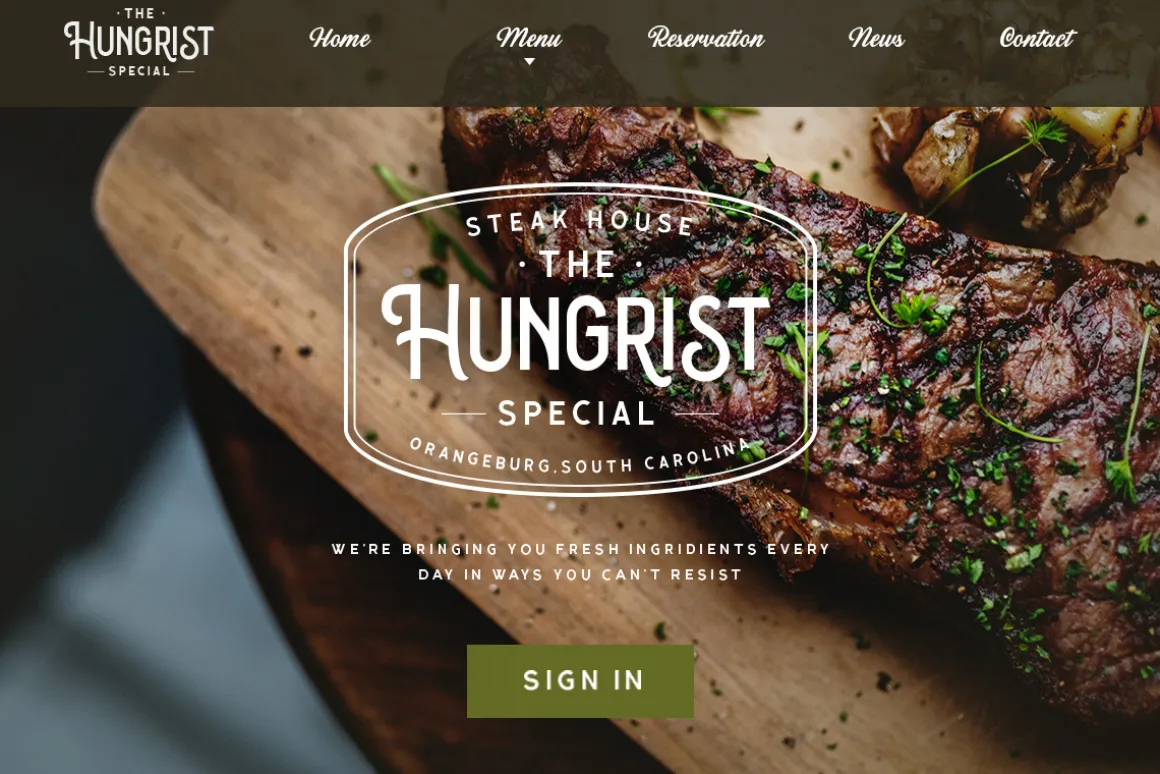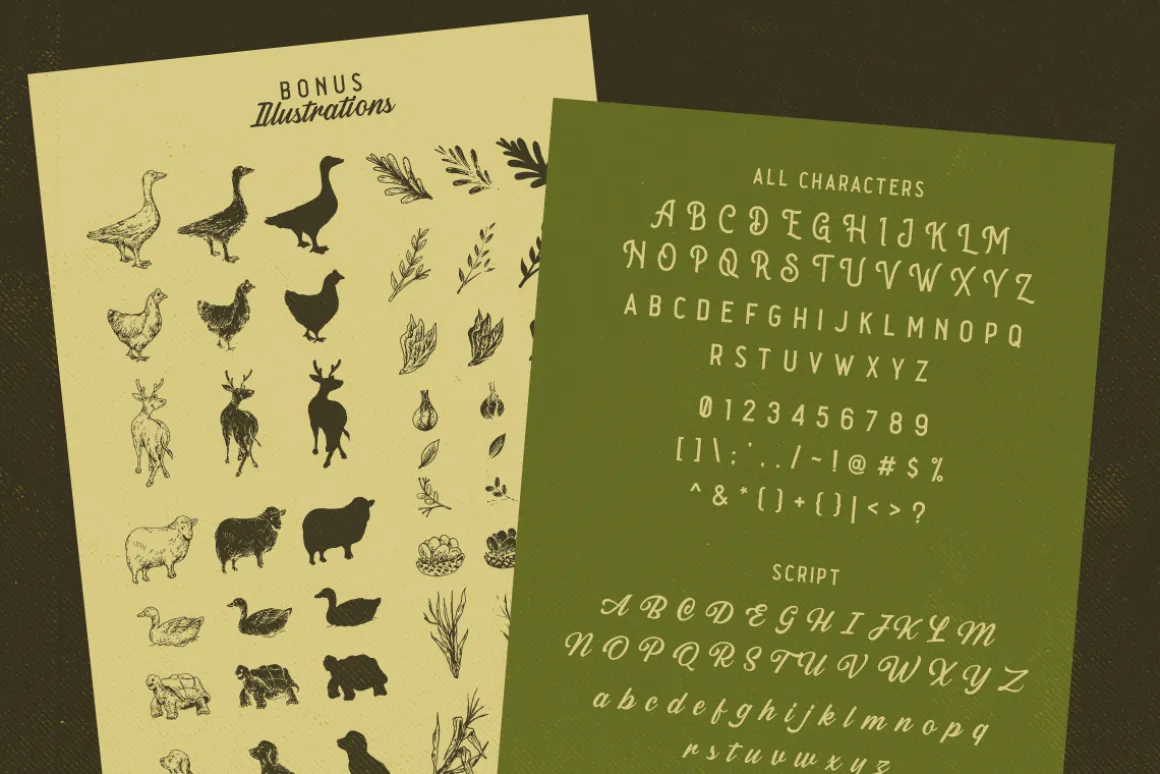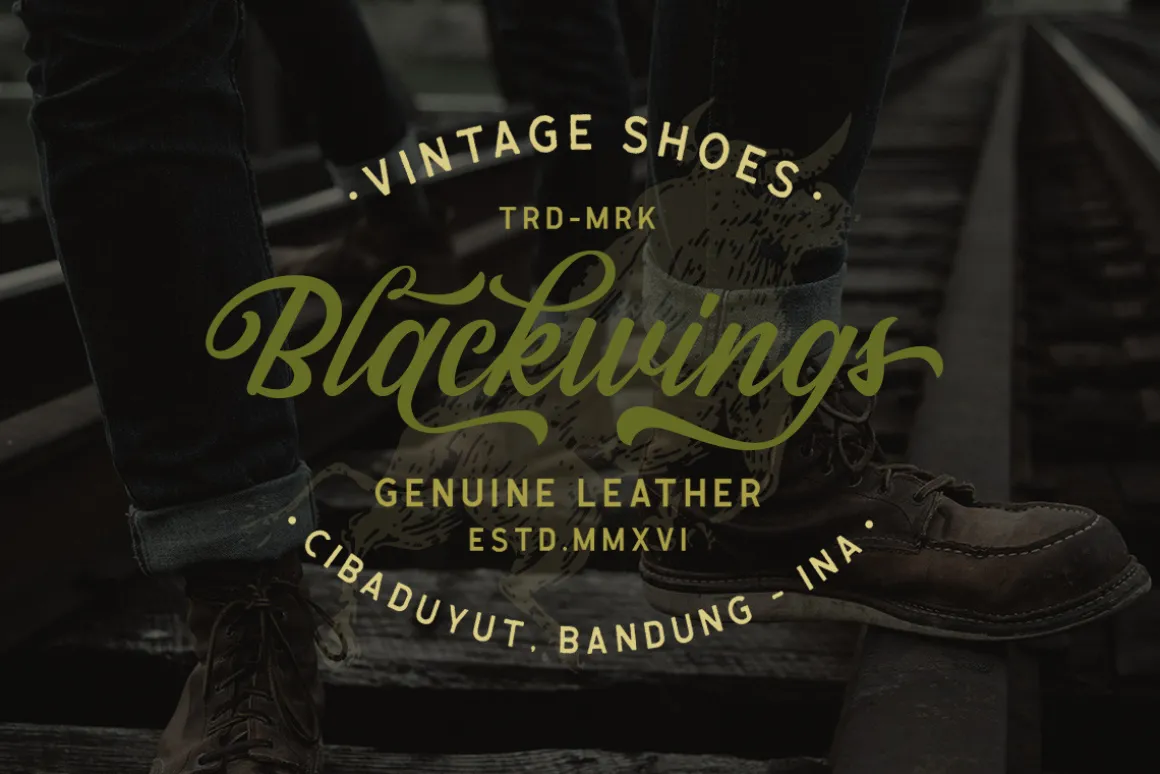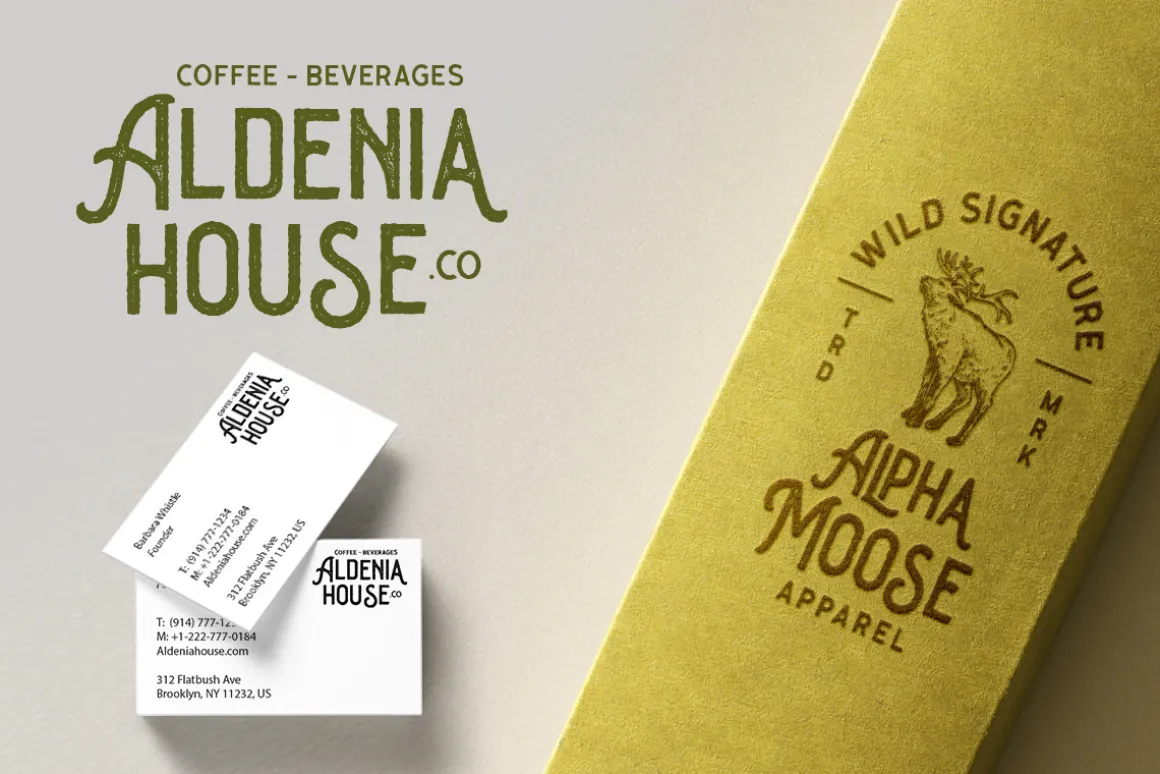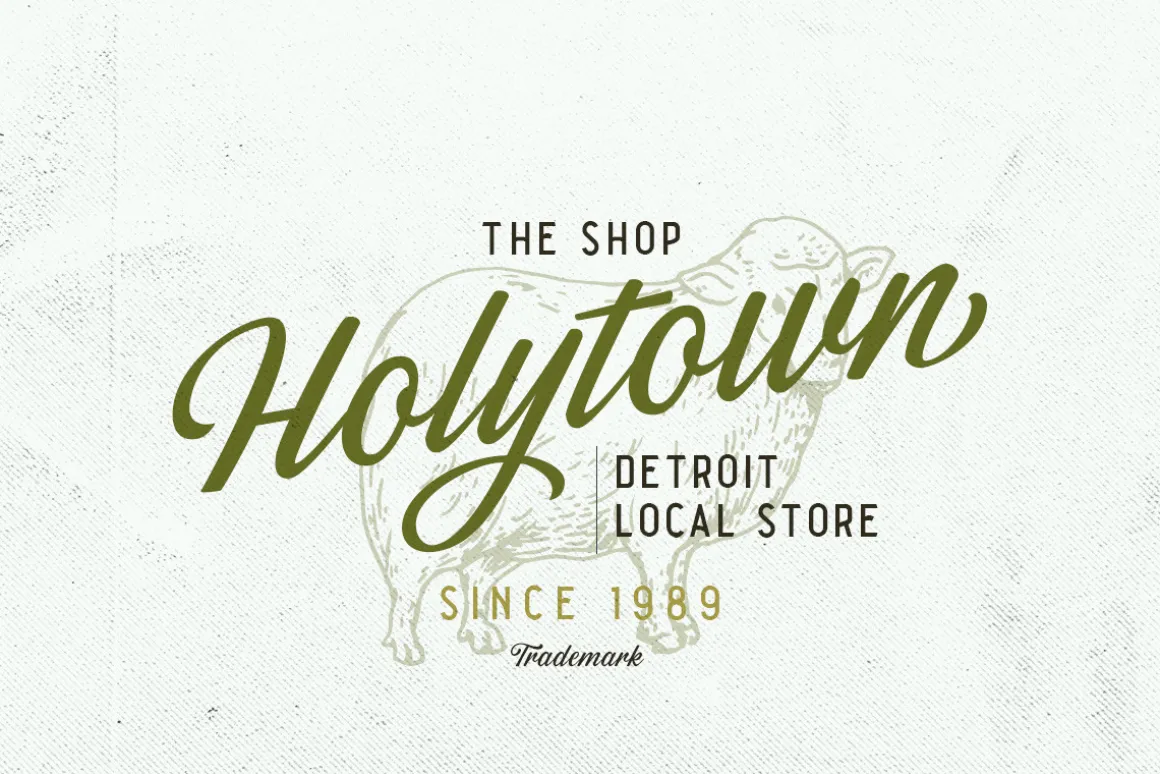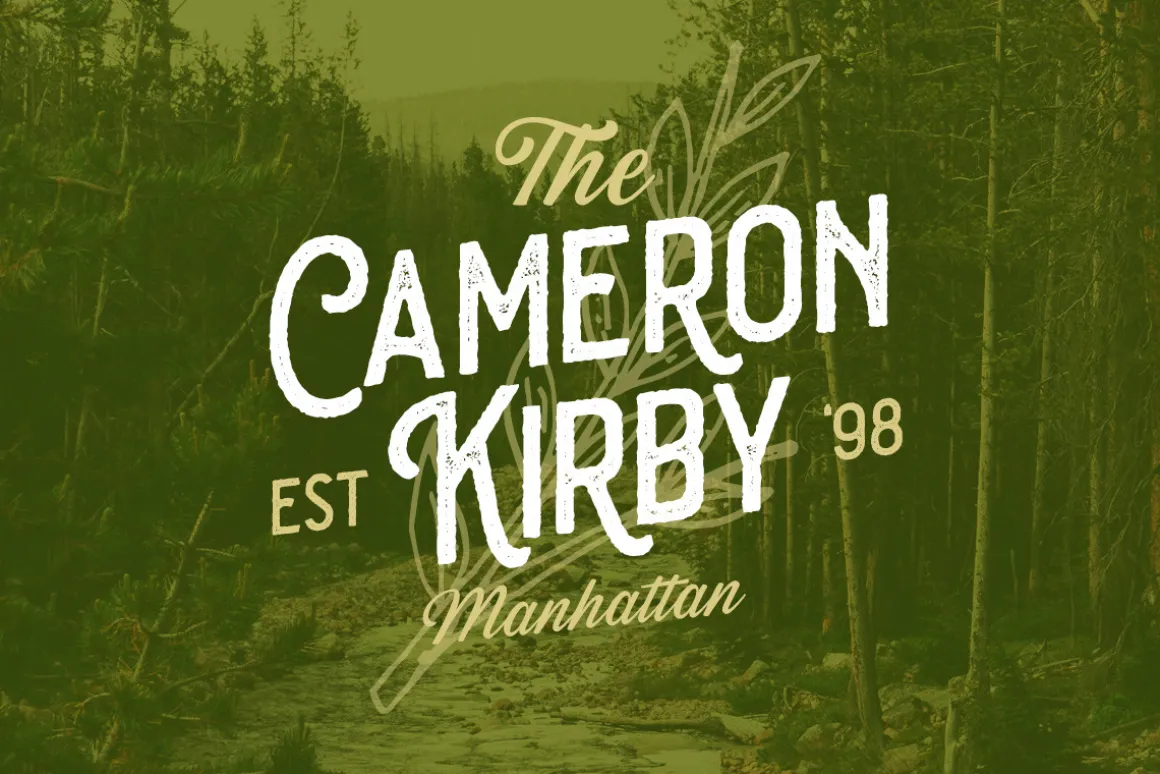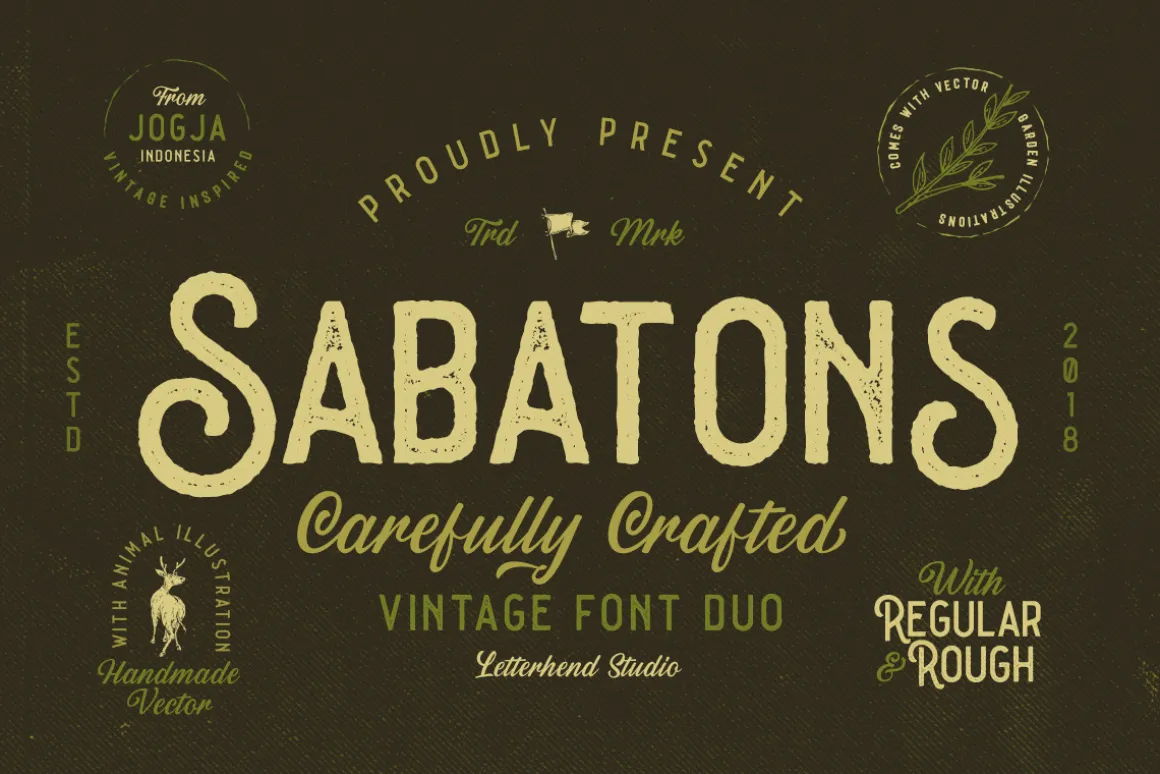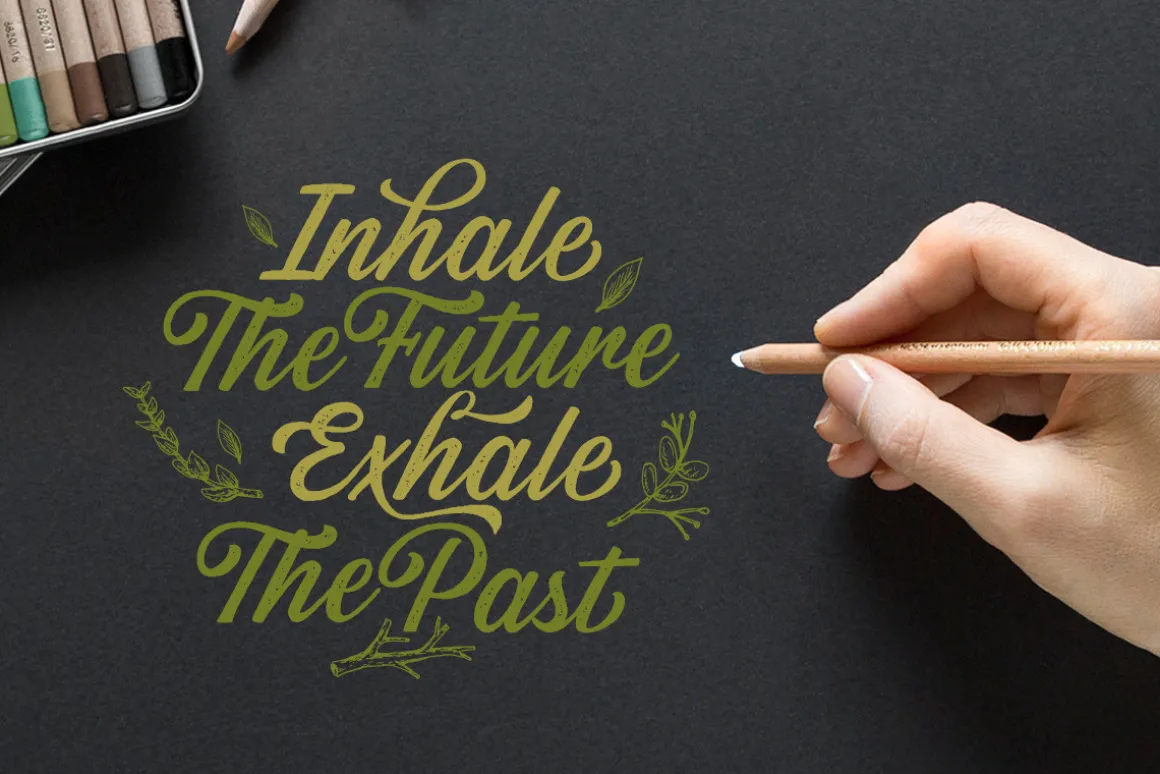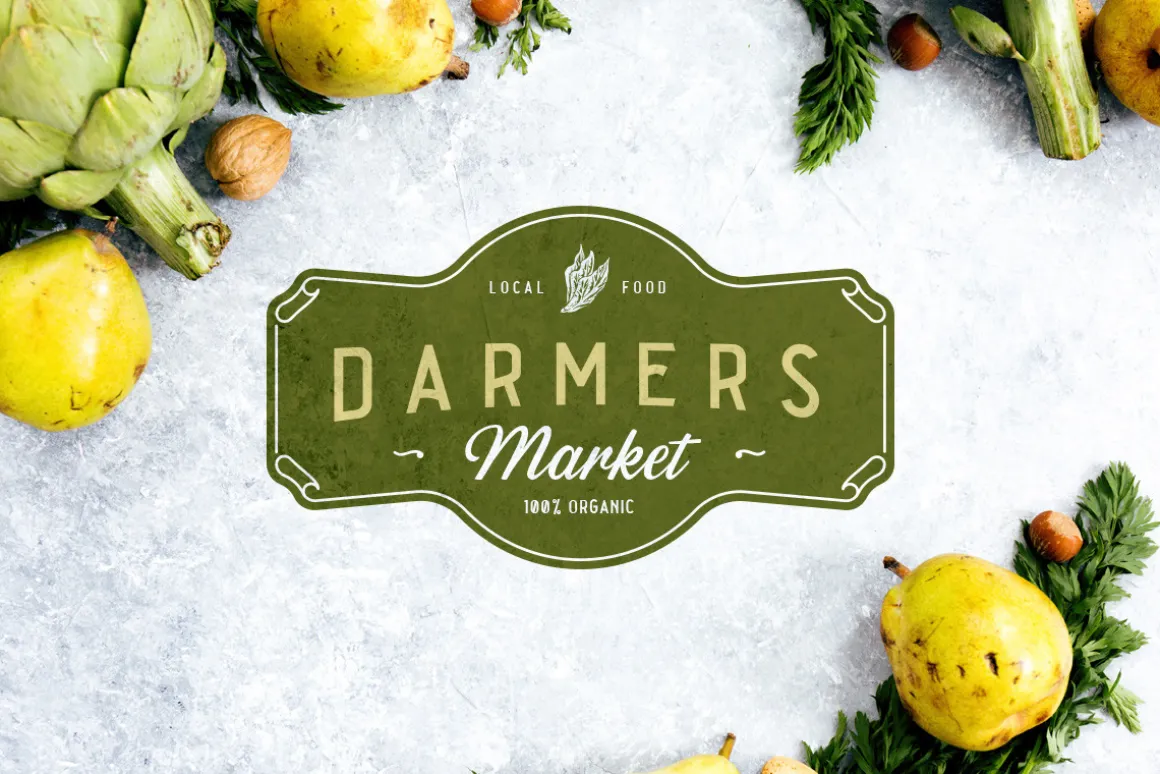
Introducing, Sabatons – Vintage Font Duo.
Sabatons – Vintage Font Duo is a sans font that comes with script, both will match perfectly. The vintage feel is really perfect for you who needs a typeface for especially logotype, apparel, branding, packaging, advertising etc. This typeface is comes in uppercase, lowercase, punctuations, symbols & numerals, a bunch of alternate, ligatures, etc also support multilingual and already PUA encoded. Also with stamp version that willmake the fonts more vintage!